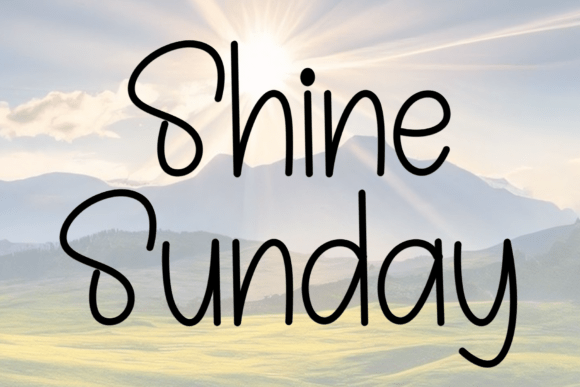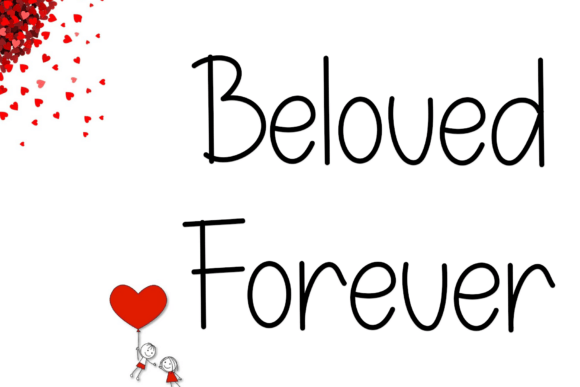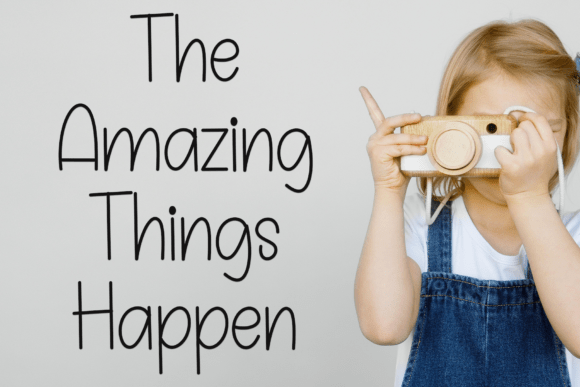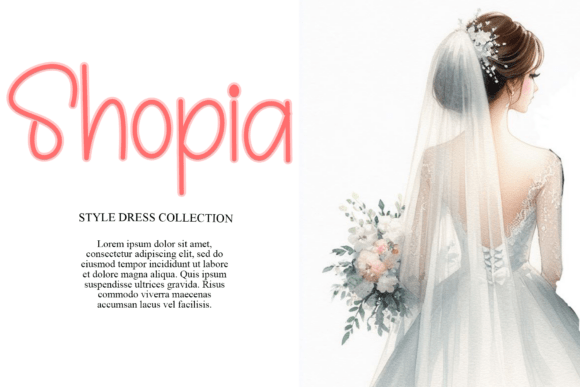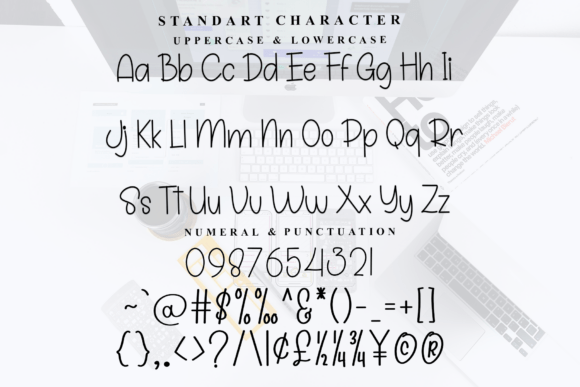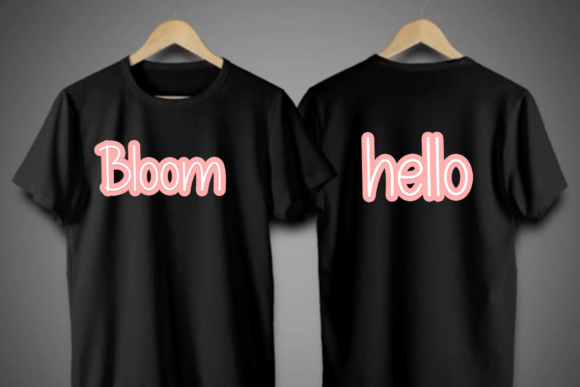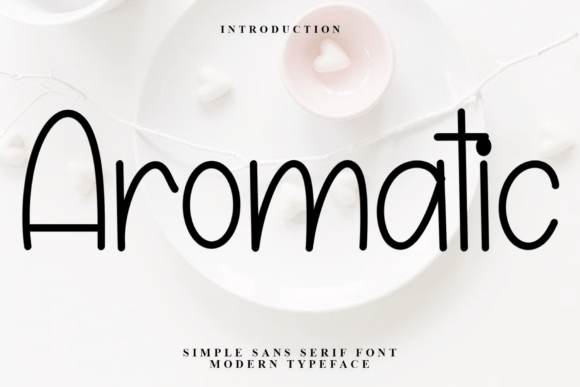
Aromatic Font: Elevate Your Designs with a Soft, Unique Touch
In the world of typography, fonts play a crucial role in making or breaking a design. A well-chosen font can elevate your creative project, making it more engaging and memorable for your audience. If you’re a designer, crafter, or creative enthusiast looking for a font that stands out from the crowd, look no further than Aromatic Font. In this article, we’ll explore the features, benefits, and uses of Aromatic Font, and why it’s a must-have for your design toolkit.
What is Aromatic Font?
Aromatic Font is a beautiful and eye-catching font designed with a soft, unique touch. Its distinctive strokes give it a special character, making it meaningful and versatile for future use. With a wide range of characters, Aromatic Font is perfect for design projects, crafts, and other creative works. Whether you’re working on a logo, brochure, or social media graphics, this font is sure to make your designs shine.
Key Features of Aromatic Font
- Soft and Unique Touch: Aromatic Font boasts a soft, rounded design that sets it apart from other fonts. Its unique touch makes it perfect for designs that require a personal and creative flair.
- Distinctive Strokes: The font’s distinctive strokes give it a special character, making it easy to recognize and remember.
- Versatile: Aromatic Font is versatile and can be used for a wide range of design projects, from logos and brochures to social media graphics and crafts.
- Wide Range of Characters: The font comes with a wide range of characters, making it perfect for multilingual designs and projects that require special characters.
Benefits of Using Aromatic Font
So, why choose Aromatic Font for your design projects? Here are some benefits of using this beautiful font:
- Enhance Your Designs: Aromatic Font will elevate your designs, making them more appealing to a wide range of audiences across different artistic and creative fields.
- Save Time: With its wide range of characters and versatility, Aromatic Font will save you time and effort in finding the perfect font for your project.
- Stand Out from the Crowd: Aromatic Font’s unique design will help your designs stand out from the crowd, making them more memorable and engaging.
- Perfect for Creative Projects: Whether you’re a designer, crafter, or creative enthusiast, Aromatic Font is perfect for a wide range of creative projects, from logos and brochures to social media graphics and crafts.
Use Cases for Aromatic Font
Aromatic Font is perfect for a wide range of design projects, including:
- Logos and Branding: Use Aromatic Font to create a unique and memorable logo for your brand.
- Brochures and Flyers: Add a touch of elegance and sophistication to your brochures and flyers with Aromatic Font.
- Social Media Graphics: Make your social media graphics stand out with Aromatic Font’s unique and eye-catching design.
- Crafts and DIY Projects: Use Aromatic Font to add a personal touch to your crafts and DIY projects, such as handmade cards, gift tags, and more.
In conclusion, Aromatic Font is a beautiful and versatile font that is perfect for designers, crafters, and creative enthusiasts. Its soft, unique touch and distinctive strokes make it a standout font that will elevate your designs and make them more engaging and memorable. With its wide range of characters and compatibility with various applications, Aromatic Font is a must-have for your design toolkit. So why wait? Download Aromatic Font today and take your designs to the next level!